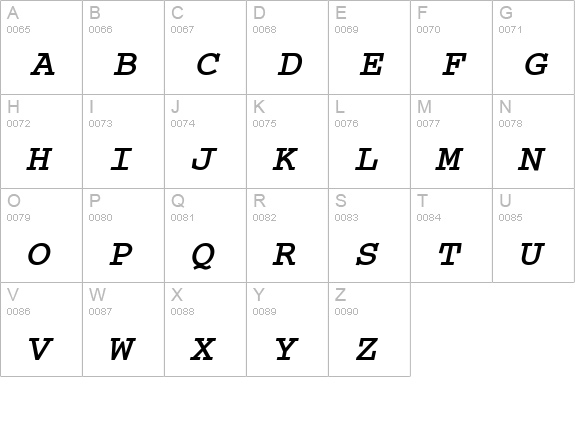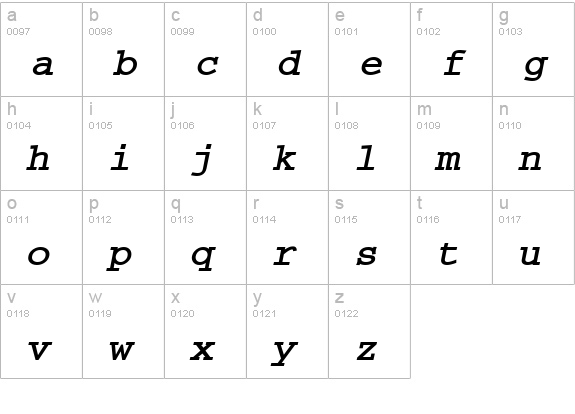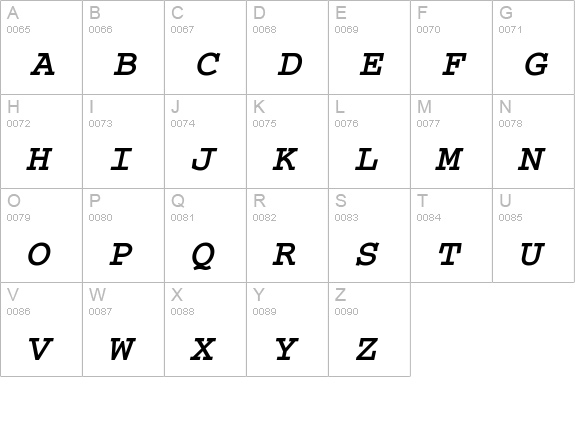
Courier BOLDITALIC Font Details
Courier BOLDITALIC is a versatile and classic font that exudes professionalism and reliability. Its bold and italic style adds a touch of sophistication to any design project, making it perfect for both print and digital applications. The clean lines and distinct characters of Courier BOLDITALIC make it exceptionally easy to read, ensuring that your message is conveyed with clarity and precision. Best of all, Courier BOLDITALIC is available for free download at FontsMarket.com. This means that you can add this high-quality font to your collection without any cost, making it a valuable asset for designers, writers, and creatives alike. Whether you're working on a branding project, a marketing campaign, or simply need a dependable font for everyday use, Courier BOLDITALIC is sure to meet your needs with style and flair. Download it today and elevate your design projects to the next level!